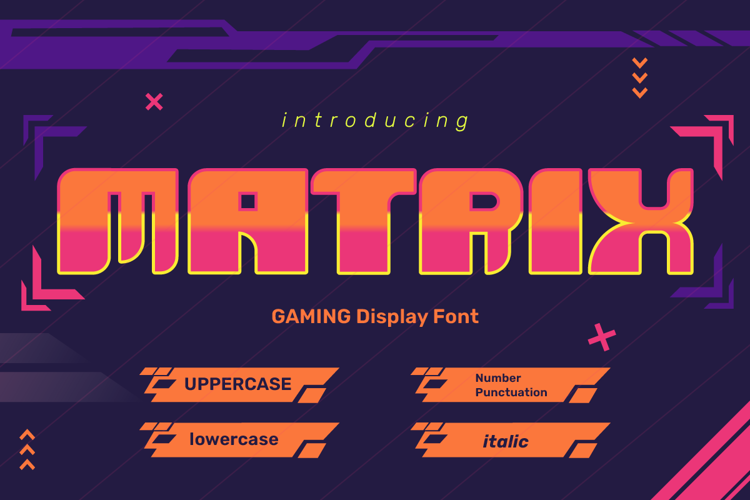
Matrix Font
Matrix is a bold, energetic font designed specifically for gamers and streamers looking to stand out. With its strong lines and futuristic appeal, Matrix captures the essence of the digital gaming world, making it ideal for gaming platforms, streaming overlays, and promotional materials aimed at a tech-savvy audience. The typeface combines uppercase, lowercase, punctuation, and italicized versions, giving creators flexibility in design while maintaining a cohesive, impactful aesthetic. The intense colors and dynamic shapes within the Matrix font bring a modern edge, perfect for engaging viewers and creating a memorable online presence in competitive spaces.